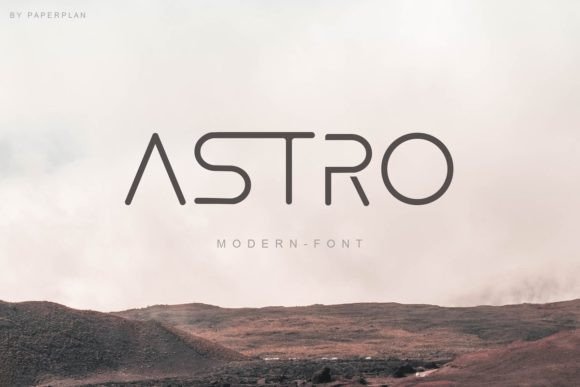
Introducing Astro Font, the perfect choice for space-themed designs that will elevate your creative projects to new heights. Created by the talented team at Nest Studio, this modern sans serif font is meticulously crafted using the golden ratio technique, resulting in a truly sophisticated and visually appealing typeface.
With its minimalist and futuristic design, Astro Font brings a unique touch to any project it is used in. Whether you're designing a logo, label, poster, or anything that requires a touch of elegance, this font is guaranteed to make a lasting impression.
One of the key features of Astro Font is its versatility. It seamlessly blends with various design styles, making it a perfect choice for a wide range of applications. Its clean lines and balanced proportions create a sense of harmony and professionalism, making it suitable for both digital and print media.
Astro Font is more than just a typeface; it's a creative tool that inspires imagination and captures the essence of space-themed designs. Its captivating and eye-catching appearance instantly draws attention and leaves a lasting impact on viewers. Unlock your creativity and let Astro Font take your designs to infinity and beyond.
In addition to its stunning visual appeal, Astro Font is also designed with usability in mind. Its legibility ensures that your message is clear and easily readable, even at smaller sizes. Whether you're designing a website, packaging, or any other medium, this font guarantees readability and impact.
Stand out from the crowd and make a statement with Astro Font. Its sleek and modern aesthetic sets it apart from traditional fonts, giving your designs a contemporary edge. Let your creativity run wild as you explore the endless possibilities this font offers.
Astro Font is not just a font; it's a gateway to a world of possibilities. It sparks emotions, evokes curiosity, and ignites inspiration. With its captivating design, it transports viewers to the vastness of space, creating a sense of wonder and fascination.
Take your designs to new heights with Astro Font. Whether you're a professional designer or someone looking to add a touch of creativity to your personal projects, this font is a must-have. Unleash your imagination and let Astro Font guide you on an extraordinary design journey.